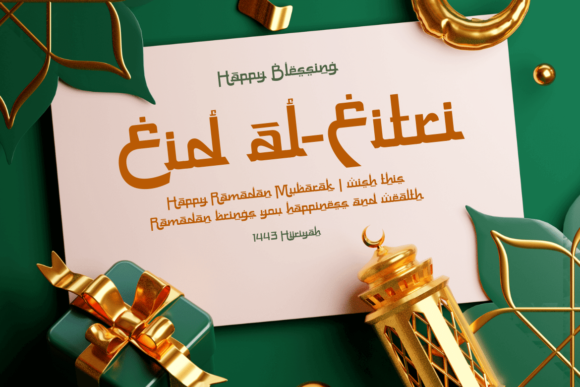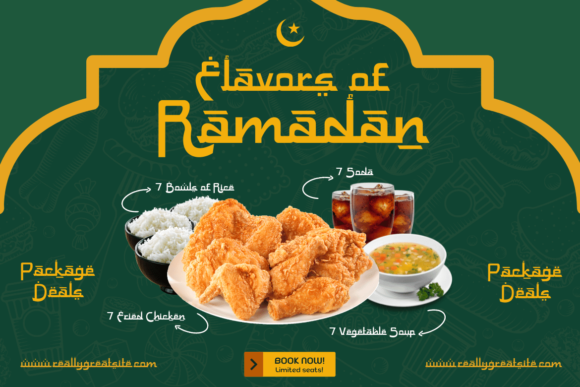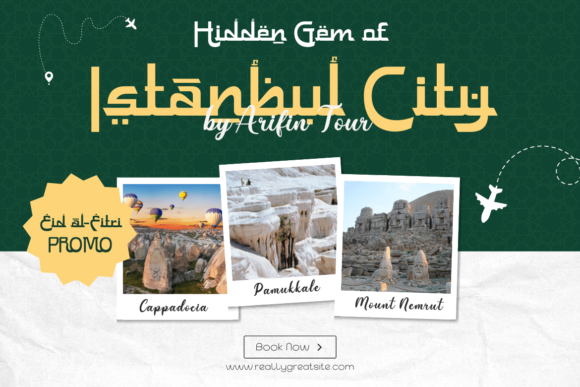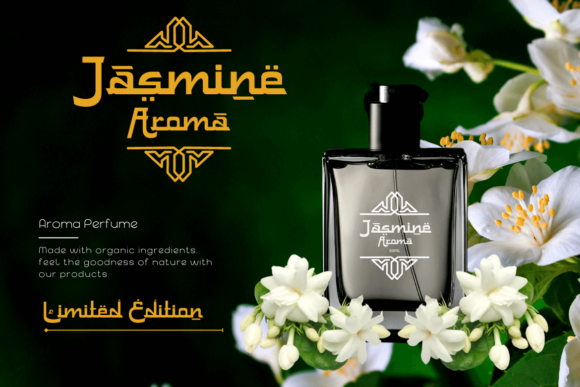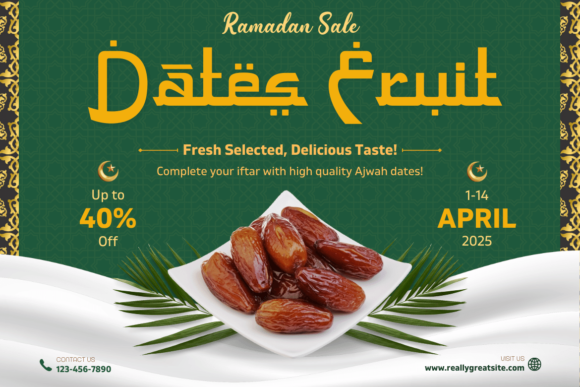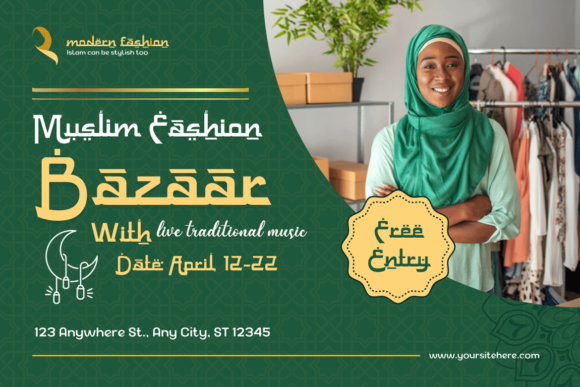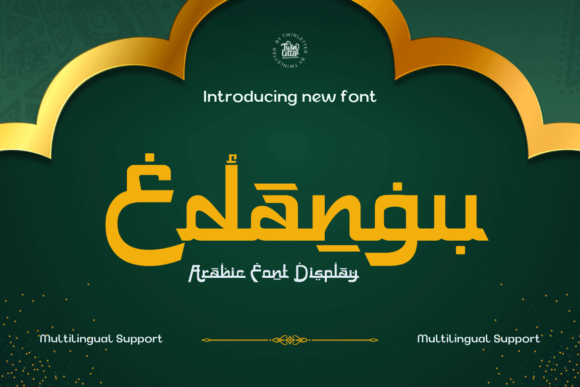
Introducing Edangu Font: A Stunning Arabic Display Font
Are you looking for a font that can add an elegant touch to your designs, especially those with a Middle Eastern theme? Look no further than Edangu Font, a newly inspired typeface that combines the beauty of Arabic calligraphy with other Middle Eastern architectural features. In this article, we’ll explore the features and benefits of Edangu Font, and why it’s a must-have for designers and crafters.
What is Edangu Font?
Edangu Font is a modern Arabic display font that draws inspiration from traditional oriental fonts used in Arabic calligraphy and Middle Eastern architecture. The font features a stunning Kufic version, characterized by beautiful and neatly arranged shapes that exude elegance and sophistication. With Edangu Font, you can add a touch of cultural authenticity to your designs, making them stand out from the crowd.
Key Features of Edangu Font
- Kufic Version: Edangu Font features a beautiful Kufic version, which is a classic style of Arabic calligraphy known for its intricate and ornate lettering.
- PUA Encoded: Edangu Font is PUA (Private Use Area) encoded, which means you can access all the amazing glyphs and ligatures with ease. This makes it easy to use the font in your designs, even if you’re not familiar with Arabic typography.
- Elegant and Sophisticated: Edangu Font is designed to add an elegant touch to your designs. Its beautiful shapes and intricate lettering make it perfect for designs that require a high level of sophistication.
- Middle Eastern Theme: Edangu Font is specifically designed to complement designs with a Middle Eastern theme. Whether you’re working on a project that requires Arabic calligraphy or simply want to add a touch of cultural authenticity to your design, Edangu Font is the perfect choice.
Benefits of Using Edangu Font
So, why should you choose Edangu Font for your next design project? Here are just a few benefits of using this stunning Arabic display font:
- Add Cultural Authenticity: Edangu Font allows you to add a touch of cultural authenticity to your designs, making them more relatable and engaging to your target audience.
- Stand Out from the Crowd: With its unique and elegant design, Edangu Font can help your designs stand out from the crowd and make a lasting impression on your audience.
- Ease of Use: Edangu Font is PUA encoded, making it easy to use in your designs, even if you’re not familiar with Arabic typography.
- Versatility: Edangu Font can be used in a variety of design projects, from branding and advertising to packaging and web design.
Who Can Benefit from Edangu Font?
Edangu Font is a versatile font that can be used by a variety of designers and crafters, including:
- Graphic Designers: Graphic designers can use Edangu Font to add a touch of elegance and sophistication to their designs, especially those with a Middle Eastern theme.
- Branding and Advertising Agencies: Branding and advertising agencies can use Edangu Font to create unique and memorable brand identities that resonate with their target audience.
- Web Designers: Web designers can use Edangu Font to add a touch of cultural authenticity to their website designs, making them more engaging and relatable to their target audience.
- Crafters and Artists: Crafters and artists can use Edangu Font to add a touch of elegance and sophistication to their handmade products, such as jewelry, textiles, and ceramics.
In conclusion, Edangu Font is a stunning Arabic display font that can add an elegant touch to your designs, especially those with a Middle Eastern theme. With its beautiful Kufic version, PUA encoding, and elegant design, Edangu Font is a must-have for designers and crafters looking to add a touch of cultural authenticity to their work. Whether you’re a graphic designer, branding agency, web designer, or crafter, Edangu Font is a versatile font that can help you create unique and memorable designs that stand out from the crowd.